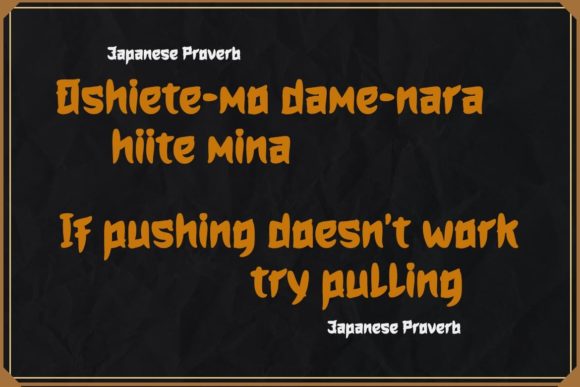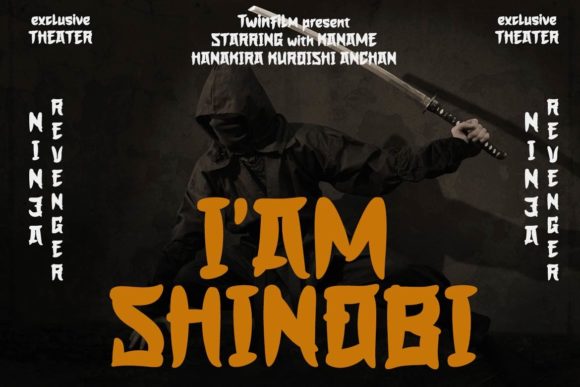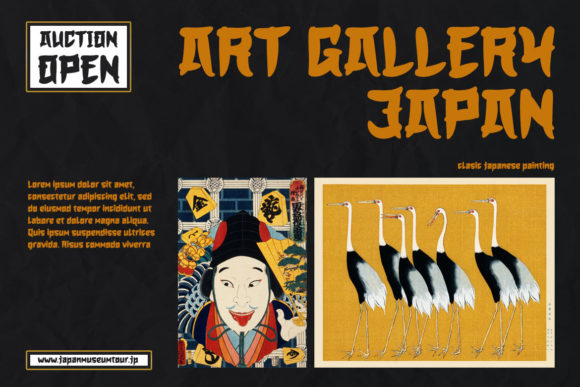
Introduction to Hogata Font Font
Fonts play a crucial role in design, and the Hogata Font font is a typeface that brings both character and versatility to any project. Whether you’re working on a branding project, a website, or a print design, the Hogata Font font offers a unique style that can elevate your work.
Hogata is a beautiful display font with a Japanese theme and an Asian subtlety.
It is ideal for projects with Asian cultural nuances, as well as projects that require a unique impression while remaining pleasing to the eye .
Key Features of Hogata Font Font
Why Choose Hogata Font Font?
The Hogata Font font is more than just a typeface – it’s a design tool that helps you communicate your message with style and clarity. Its unique character set and versatile design make it suitable for a wide range of applications, from elegant invitations to bold headlines.
With its carefully crafted letterforms and balanced proportions, the Hogata Font font ensures readability and visual appeal across all mediums.
What makes Hogata Font font special?
The Hogata Font font stands out with its unique design, exceptional readability, and versatility across various design applications.